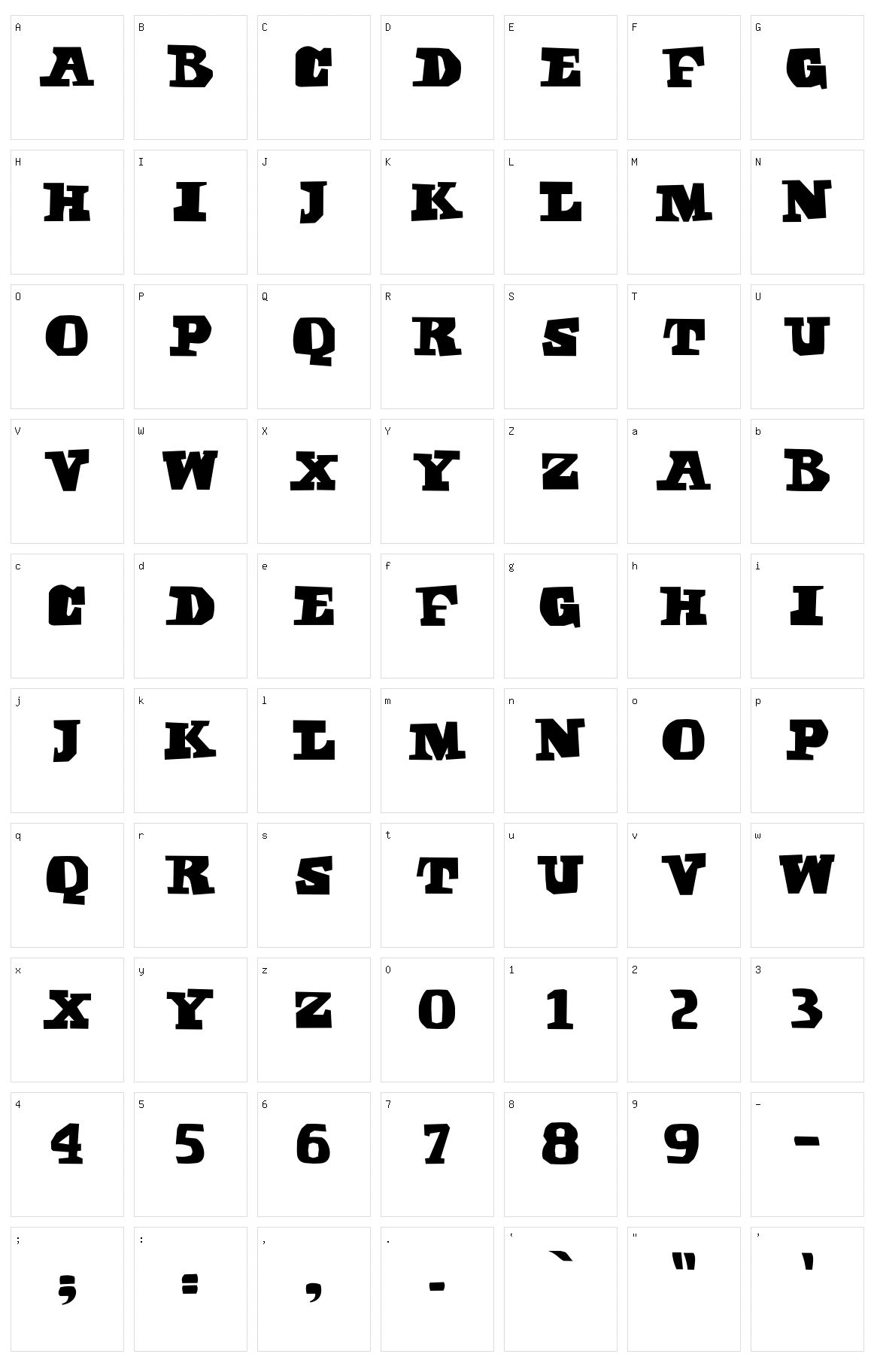
Sabbath Paranoid
Sabbath Paranoid is based on the lettering found on the sleeve of
Black Sabbath's Paranoid album released on September 1970. See
https://en.wikipedia.org/wiki/Paranoid_(album) for more info about
Black Sabbath's Paranoid album.